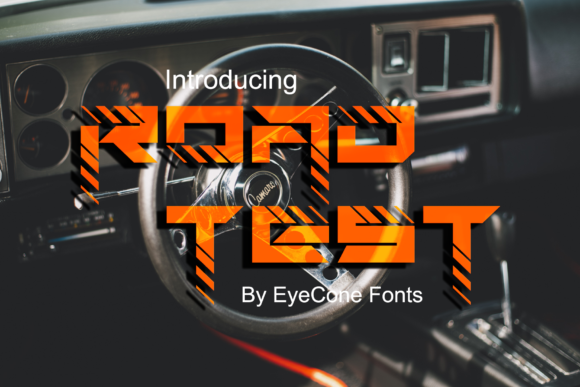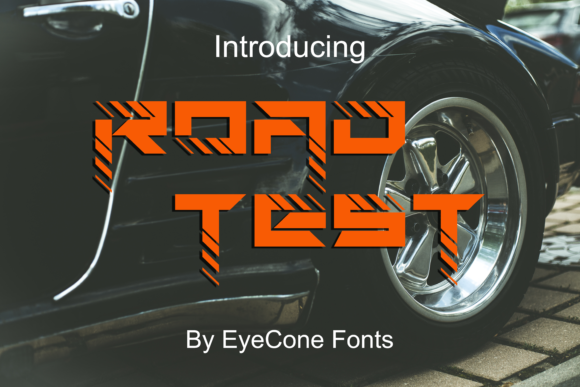
Introduction to RoadTest Font
The RoadTest is a very attractive display font.
It can be used for various purposes but is best for clothing lines and logos .
Key Features of RoadTest Font
Why Choose RoadTest Font?
RoadTest Font offers exceptional quality and versatility, making it a valuable addition to your design toolkit. Whether you’re creating for personal projects or commercial use, RoadTest Font delivers professional results.